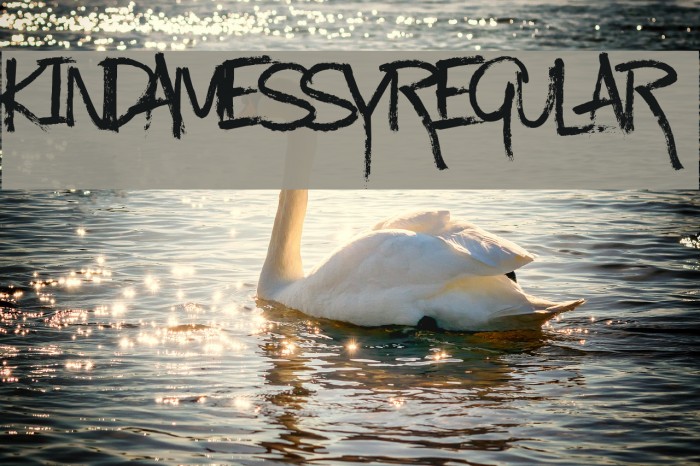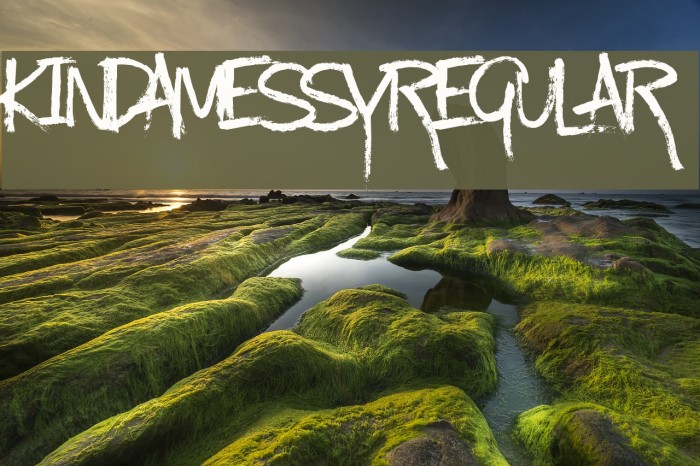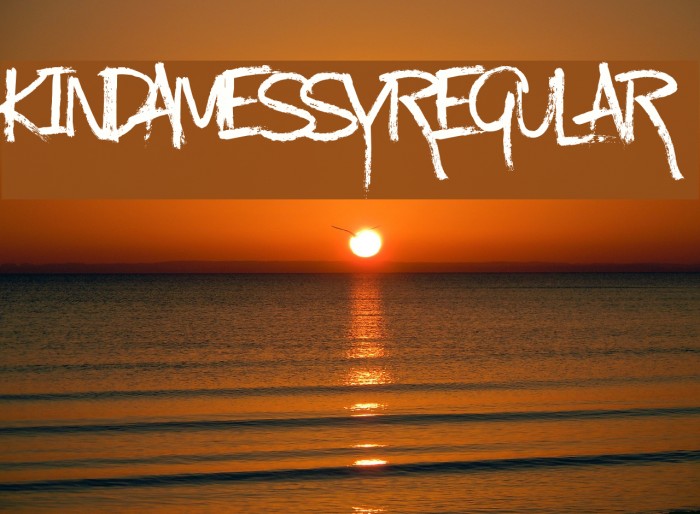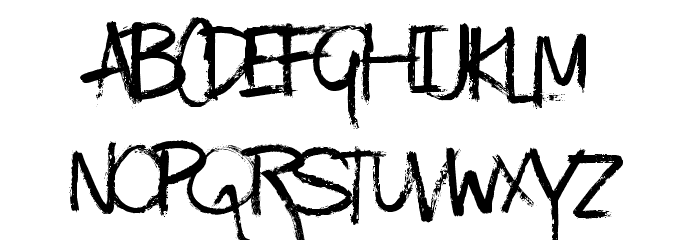
KindaMessy-Regular Font
This font exhibits a bold, expressive style with a hand-drawn, graffiti-like appearance. The characters are irregular and dynamic, with strokes that vary in thickness, creating a sense of movement and energy. The edges are rough and textured, giving it a raw, artistic feel. This font captures a sense of spontaneity and creativity, making it stand out with its unique, messy aesthetic. It is ideal for projects that require a bold statement or an urban, edgy vibe. The uppercase letters are particularly striking, with each character maintaining a distinct individuality while contributing to a cohesive overall look.
Overall StyleModern, Urban, Artistic
Use CaseHeadlines, Logos, Posters
Proposed ProjectsPerfect for street art designs, music album covers, urban-themed posters, and creative branding projects.